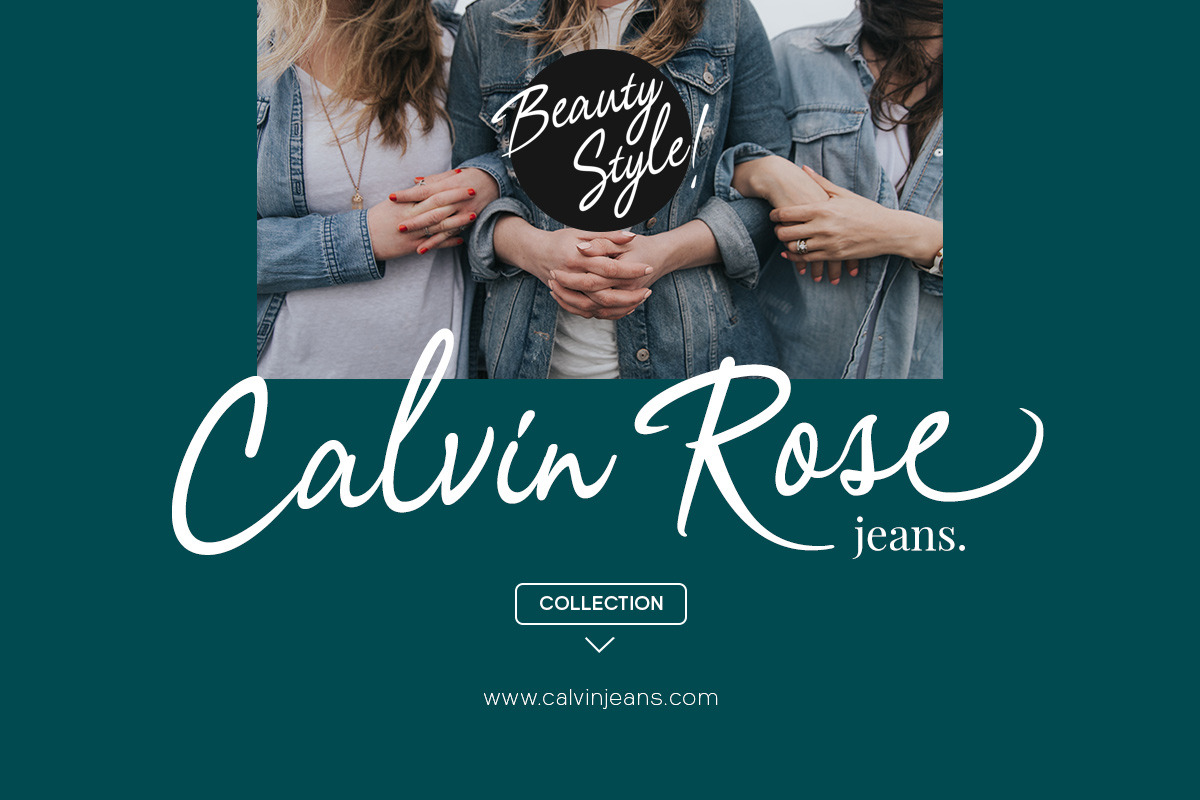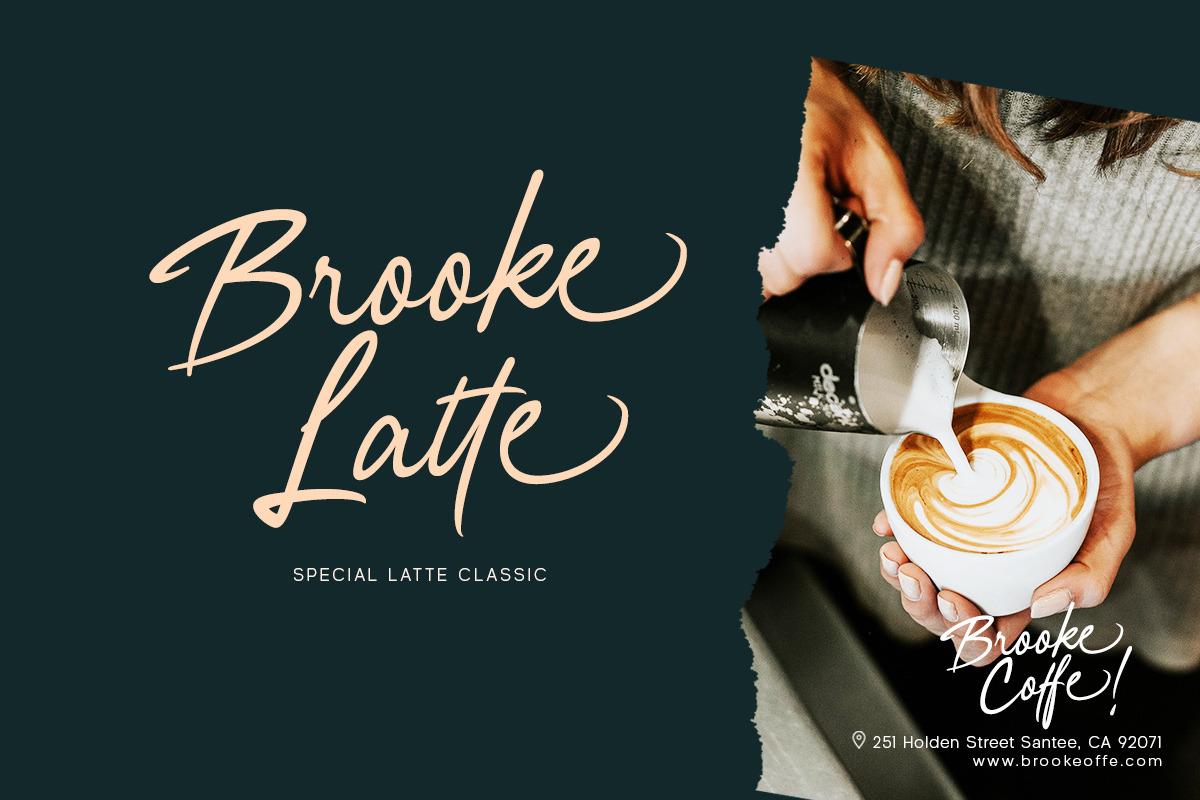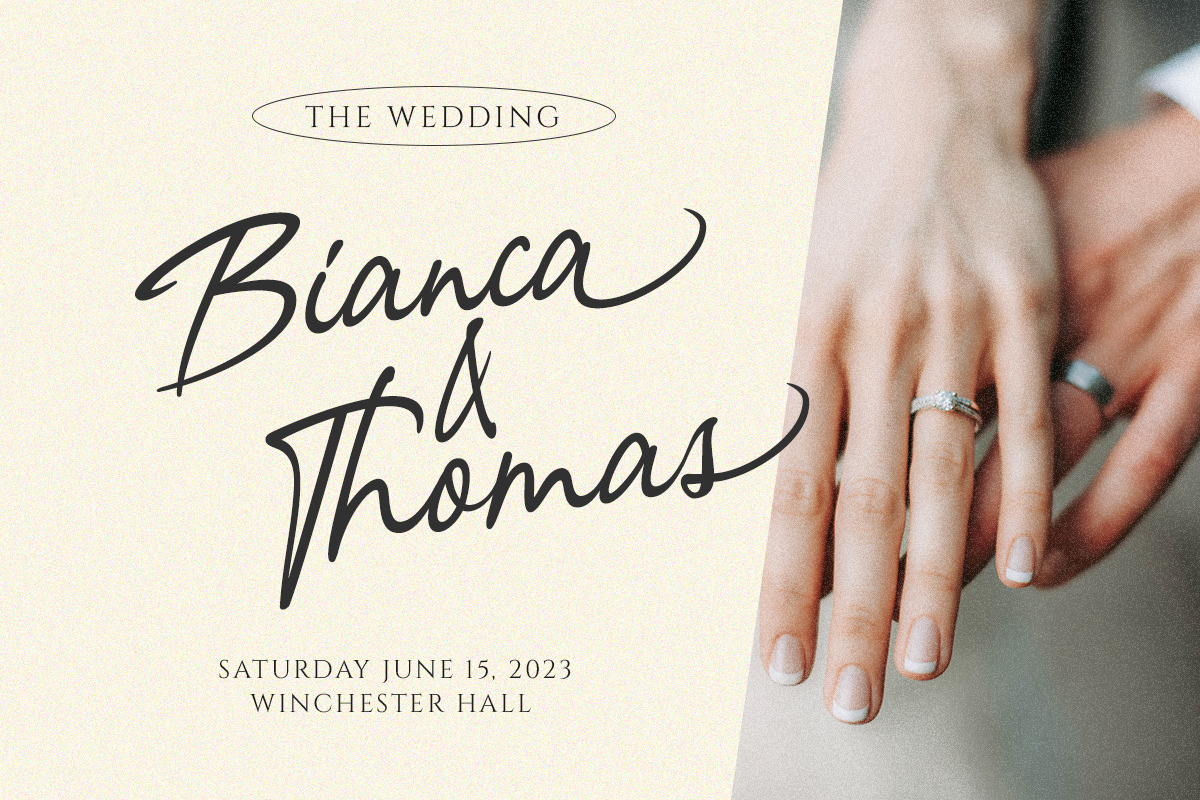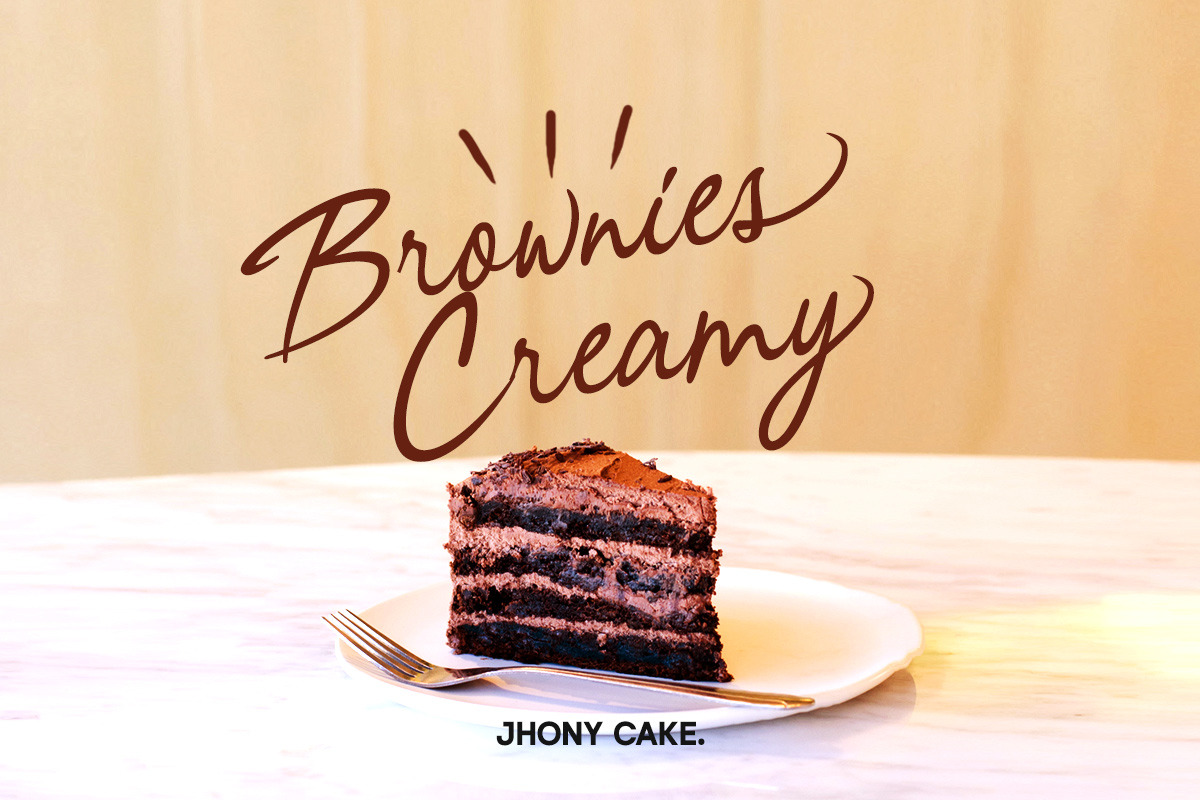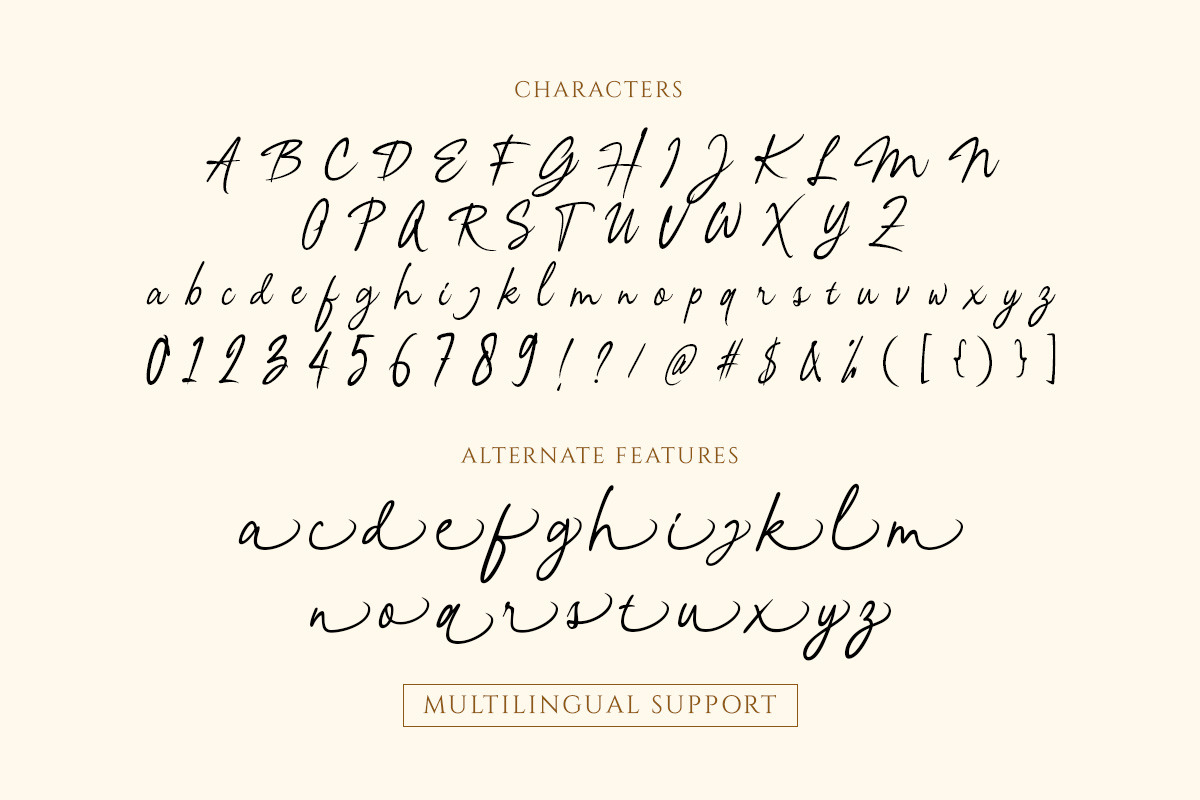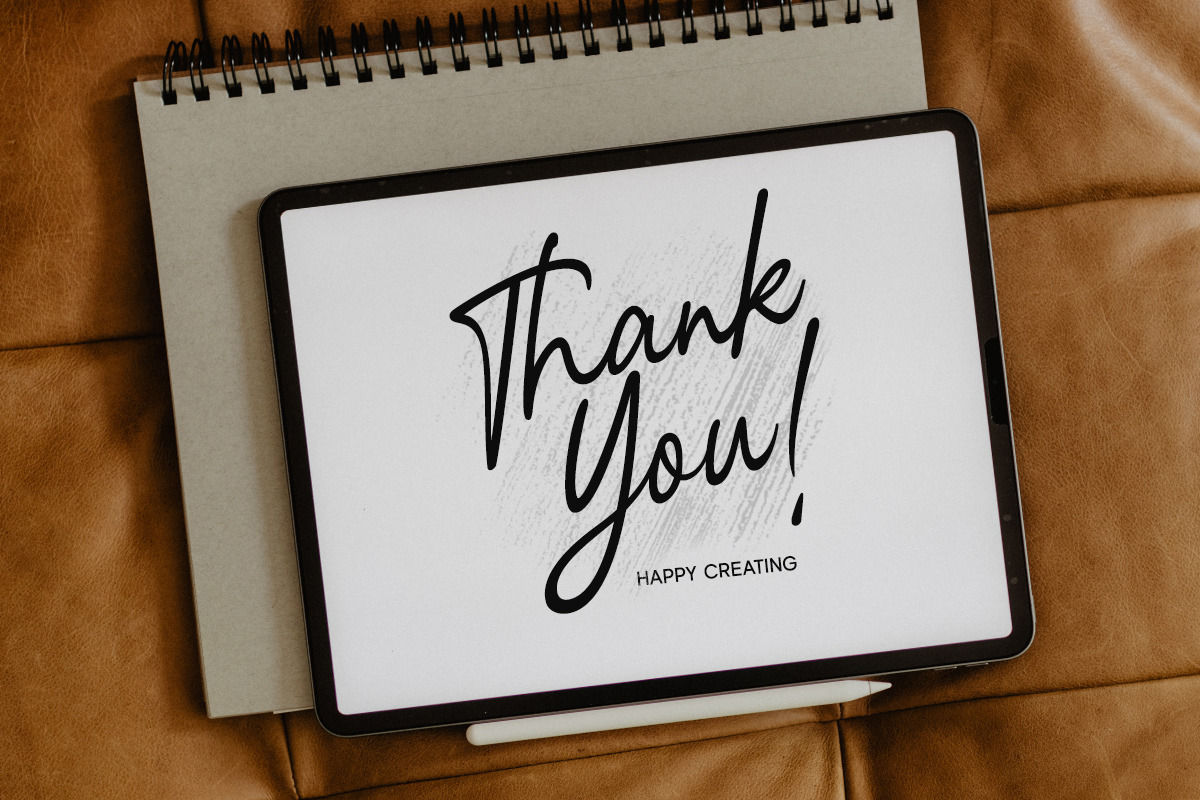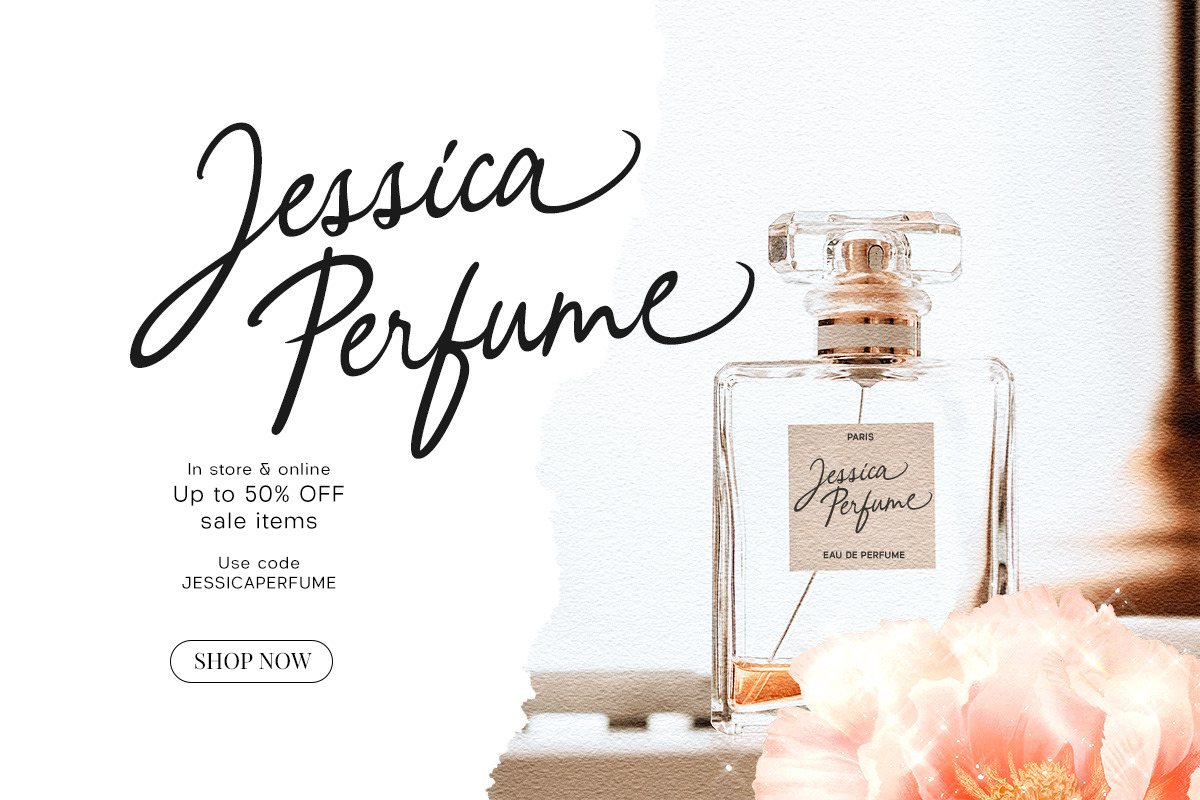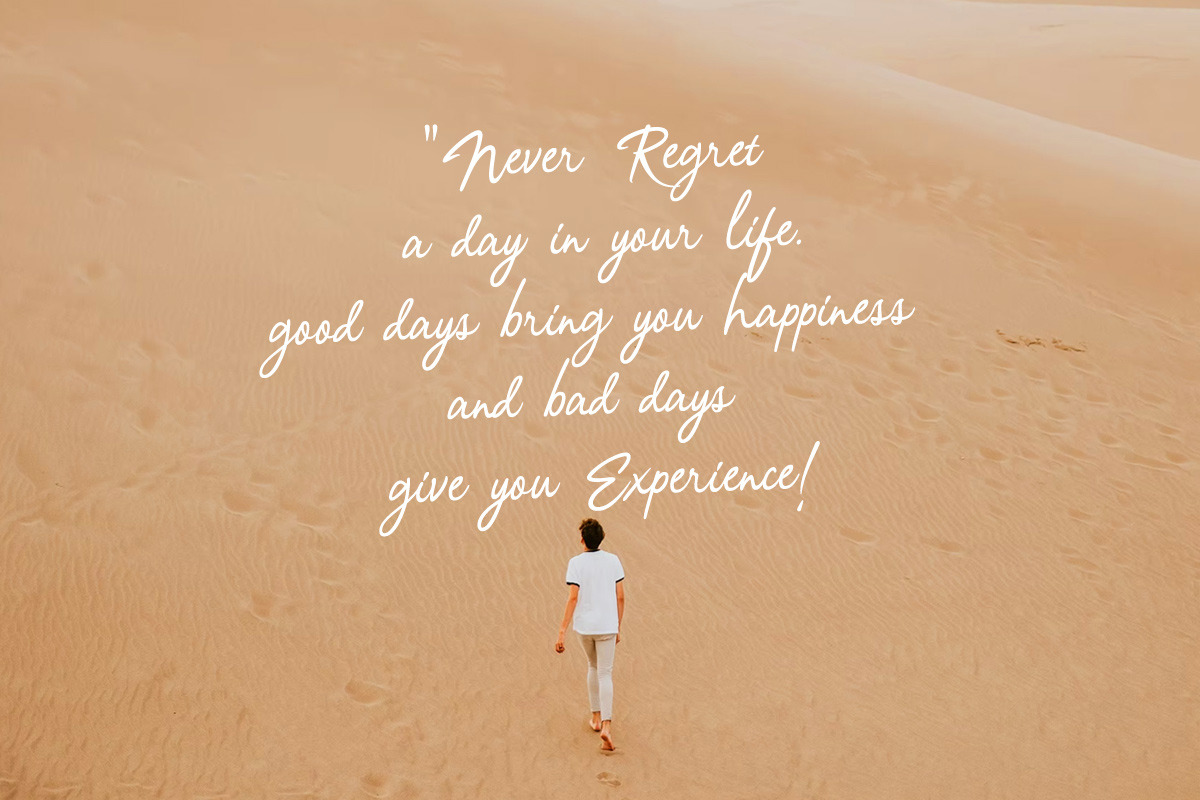
Nagintha - Handwritten Script
Nagintha is a handwritten script with natural look and feel. You can use also for headline or signature. This type of font perfectly made to be applied especially in logo, and the other various formal forms such as invitations, labels, logos, magazines, books, greeting / wedding cards, packaging, fashion, make up, stationery, novels, labels or any type of advertising purpose.
- alternates and ligatures